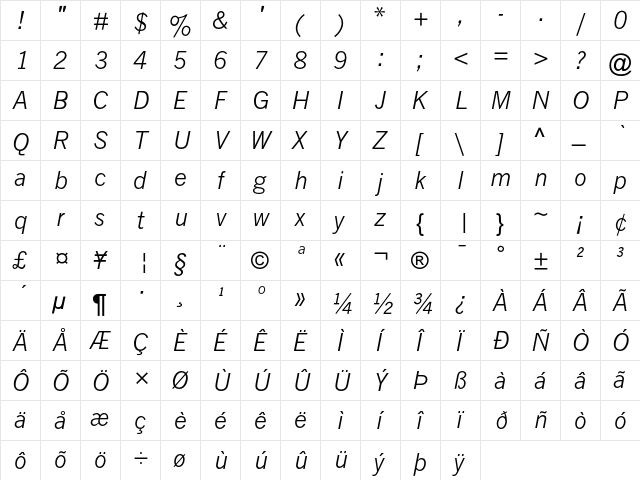
News Gothic Italic Font Preview
News Gothic Italic
News Gothic Italic Font Details
Design Context for News Gothic Typeface
News Gothic has the quiet confidence of well-executed sans-serif typography: versatile, unobtrusive, and dependable at any size. Its italic angle brings a sense of urgency and motion to the letterforms.
Font Pairing: Works well alongside a characterful serif or display font that can carry the expressive load while News Gothic handles the functional copy.
Pro Tip: Pair News Gothic with a display or serif font for headlines — its neutral character makes it an excellent supporting player in complex typographic systems.